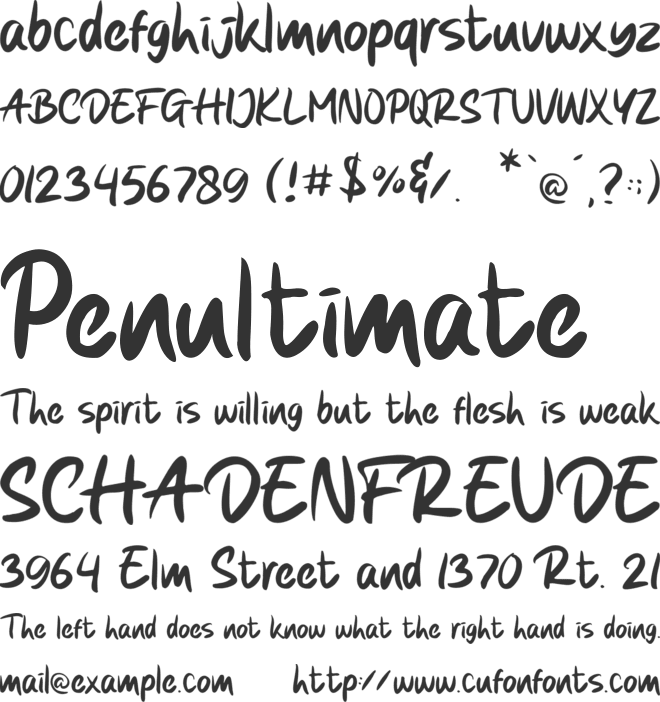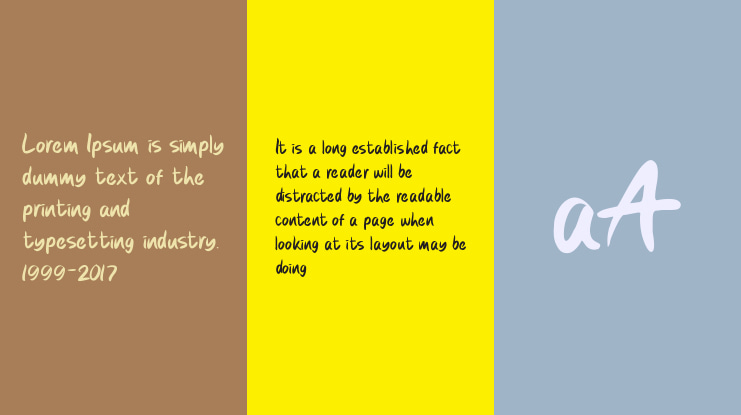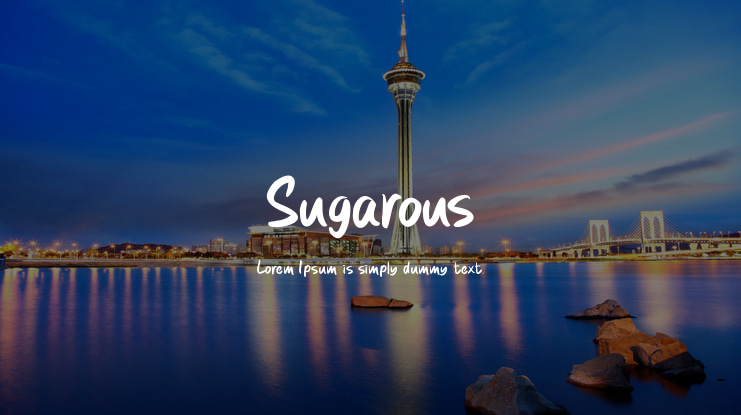
Sugarous Font
Mukhlis Muhammad
Sugarous is a sweet and simple handwritten font that you can use in any commercial projects such poster designs, crafting, cover design, social media promotion and much more.